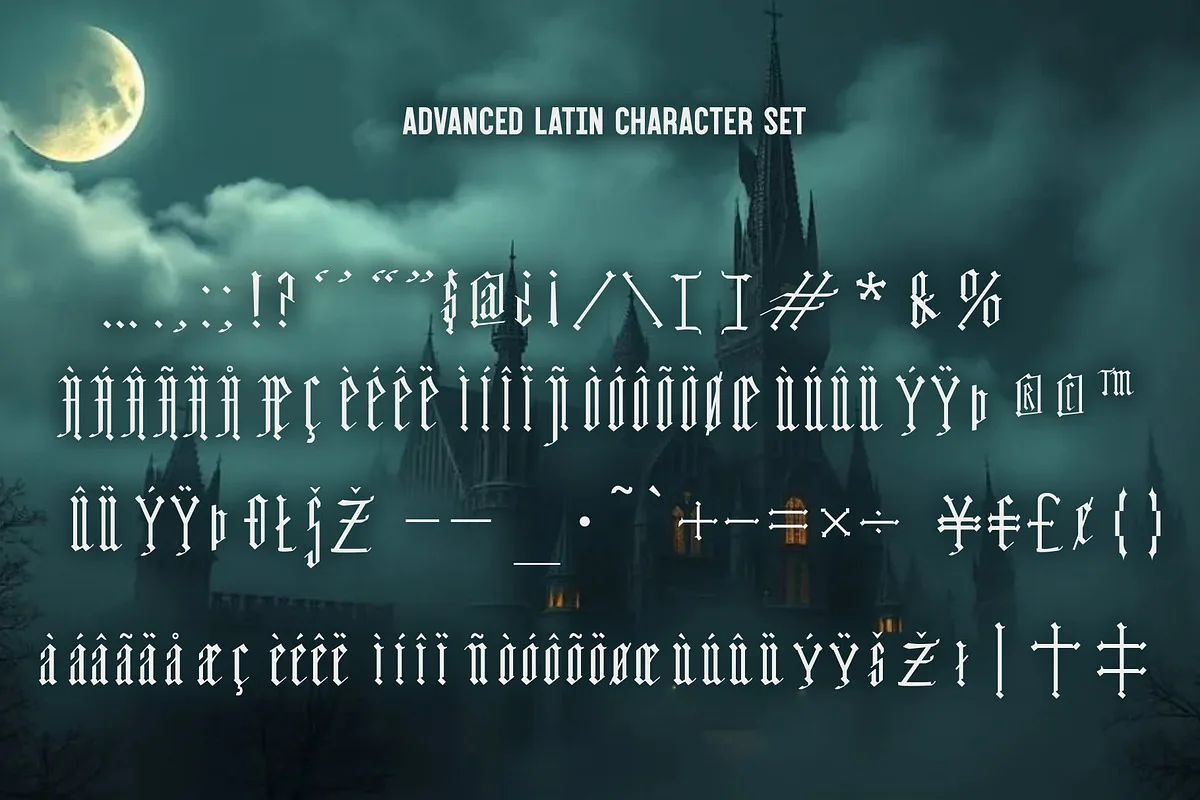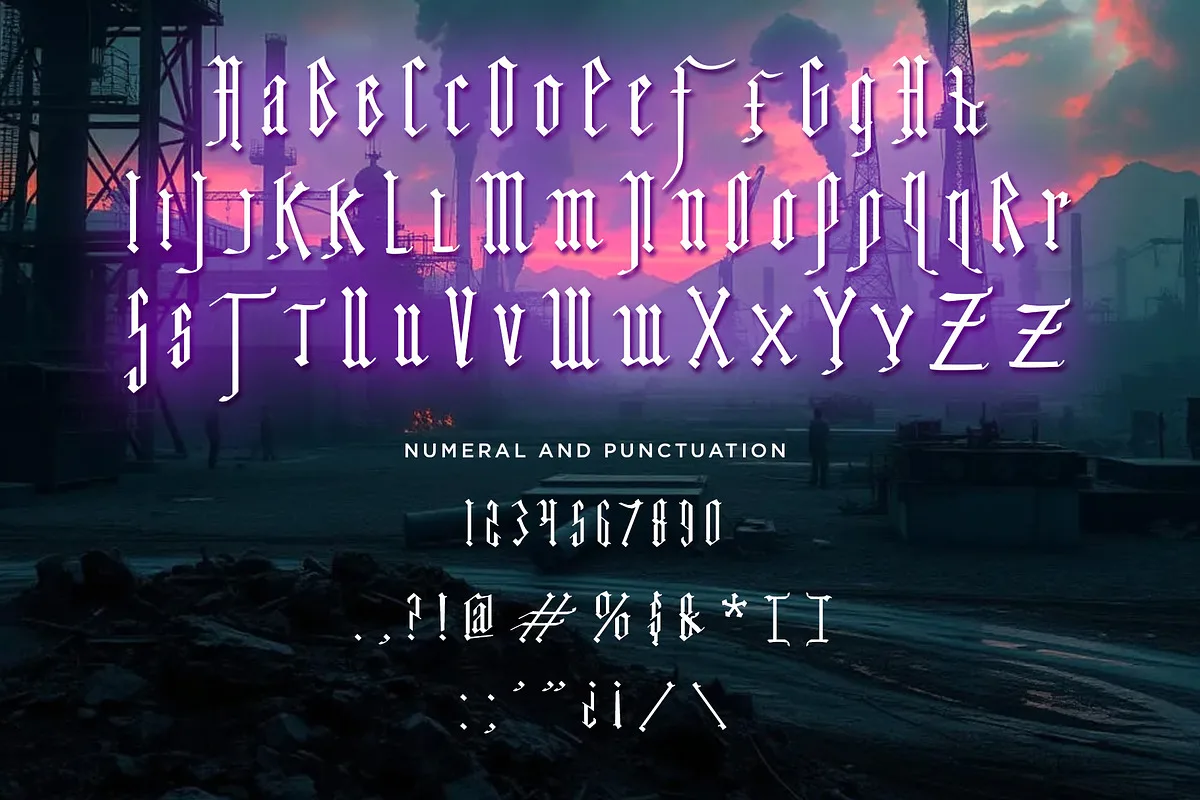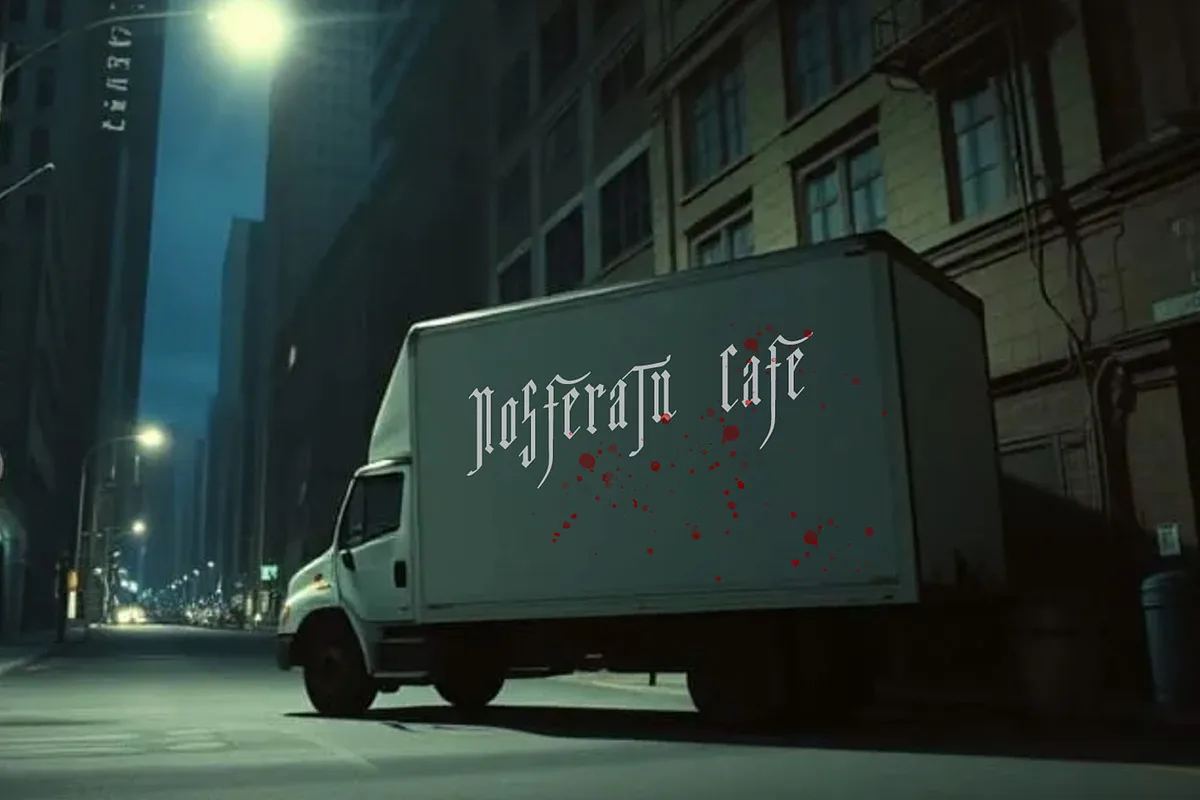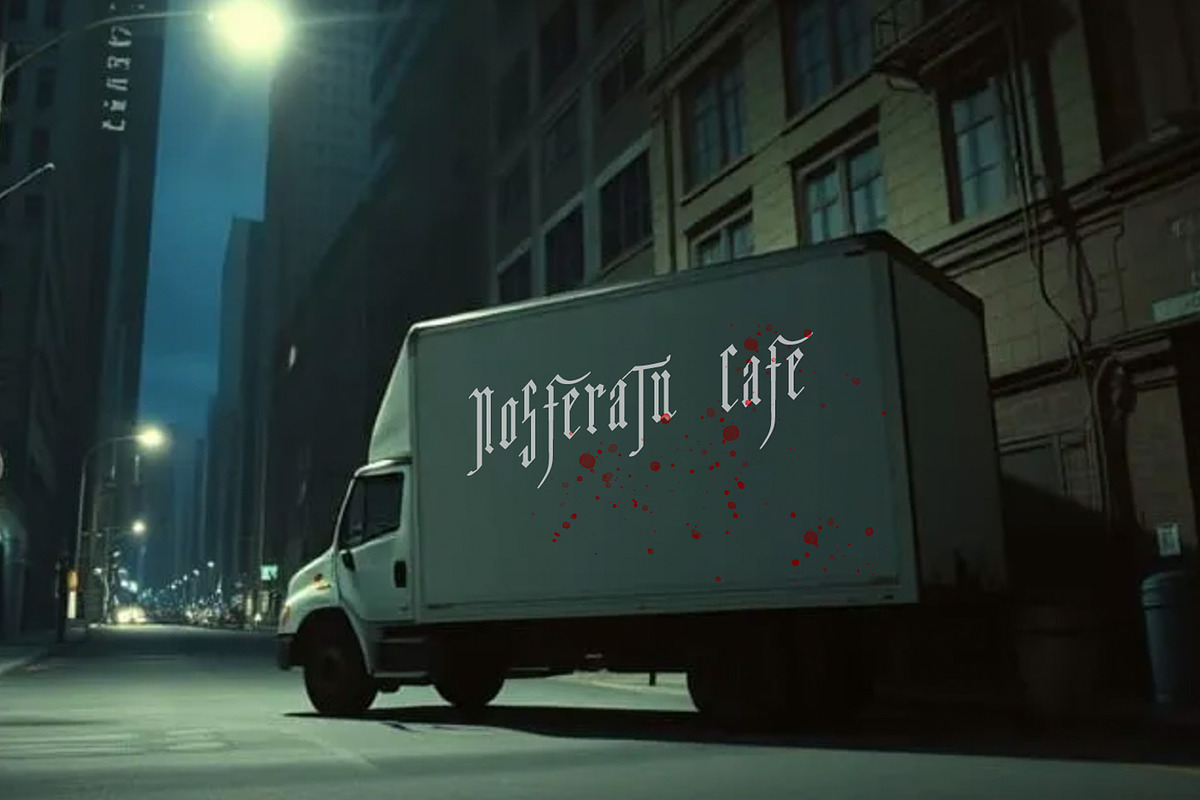
Nocturnal is a dark elegant gothic font inspired by the iconic ‘Nosferatu’ movie poster text. Perfect for horror designs, vintage posters, book covers, branding, and more—embrace timeless gothic style today!
- Uppercase
- Lowercase
- Numerals and Punctuation
- Advanced Latin Character Set